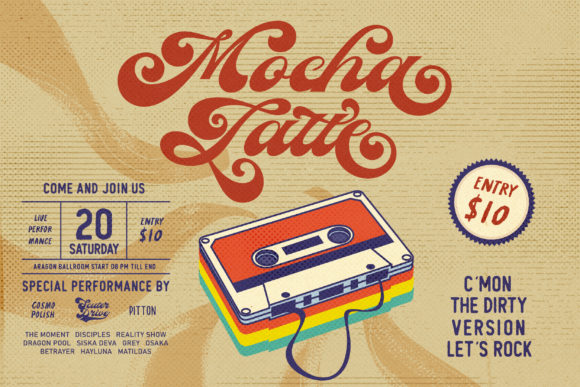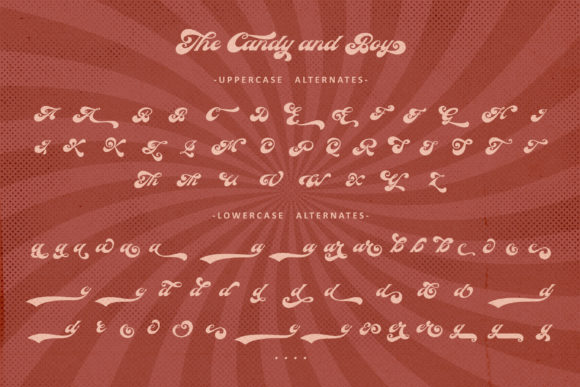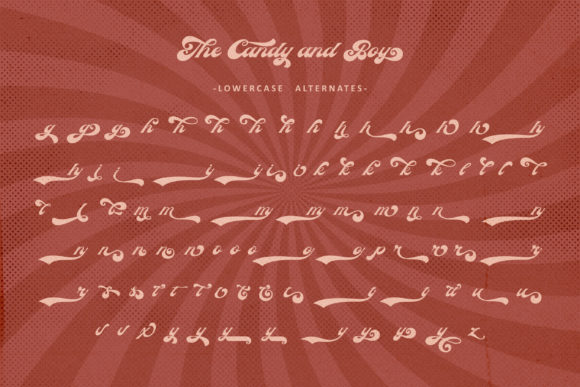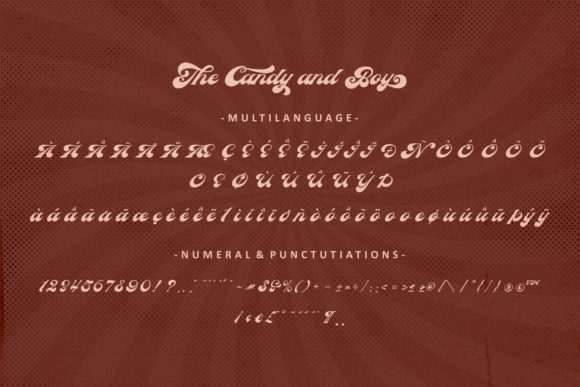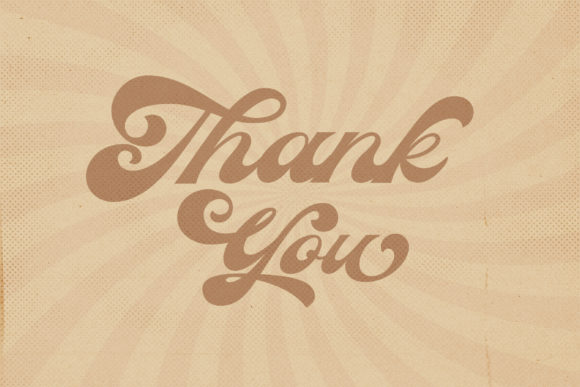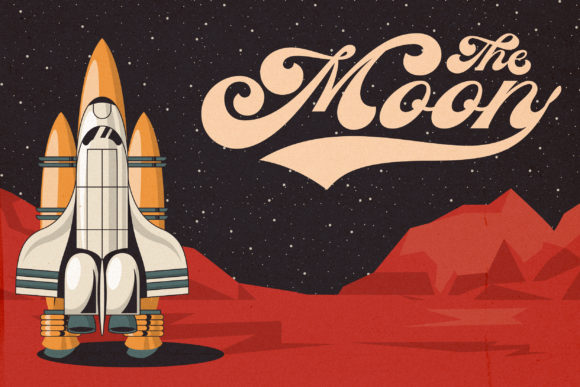
The Candy and Boy: Embrace the Retro Styled Handwritten Font
Introducing The Candy and Boy, a font that exudes retro charm in every letter. With its flowing and elegant style, this font brings a touch of nostalgia and sophistication to your designs. Whether you’re creating vintage posters, crafting elegant quotes, designing captivating logos, or engaging in any creative project—The Candy and Boy is the perfect addition, ready to make your favorite ideas stand out with its beautiful handwritten font that radiates versatility.
The allure of The Candy and Boy lies in its retro styled appearance. Each letter carries the essence of a bygone era, creating a genuine connection with the past and adding a sense of elegance to your designs.
Designing with The Candy and Boy is a delightful experience. Its flowing strokes bring a touch of grace to your work, making them stand out with effortless beauty.
Fall in love with the limitless possibilities of The Candy and Boy. Whether you’re designing for vintage themes or modern concepts with a hint of nostalgia, this font adapts seamlessly to suit your creative vision.
Expressing sentiments becomes an art form with The Candy and Boy. Its elegant nature breathes life into your words, making them resonate with sophistication and style.
Gorgeous designs come to life with The Candy and Boy’s retro charm. Whether you’re creating artistic posters that capture the essence of the past or designing elegant quotes that inspire, this font adds a touch of uniqueness that leaves a lasting impression.
In conclusion, The Candy and Boy is more than just a font; it’s a retro styled masterpiece that invites you to embrace the timeless allure of the past. Embrace its elegant charm, and let it become the heart of each of your favorite ideas. Whether you’re expressing nostalgia, adding a touch of sophistication, or designing with a dash of retro flair, The Candy and Boy will be your trusted companion, adding a touch of grace and versatility. Allow this font to unlock the full potential of your creativity, and watch as your designs come alive with the captivating and elegant spirit of The Candy and Boy. Fall in love with its nostalgic charm, and let it be the guiding light that leads you to create truly remarkable designs that leave a lasting impact on all who behold them.